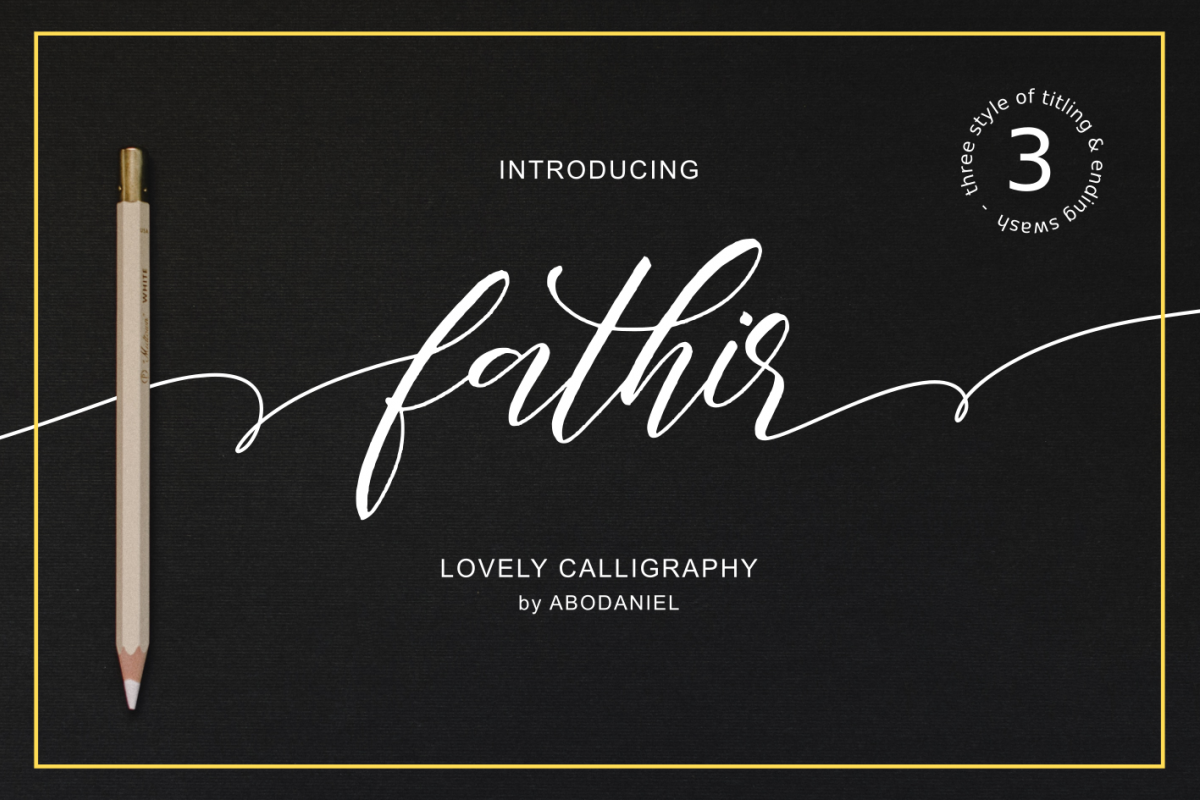
Fathir - Lovely Calligraphy -
Introducing
FATHIR - lovely calligraphy font -
Fathir is made with real handwritten,
The Alternate of uppercase are great for logo.
Three style of titling and ending swash
The font was came with three style of titling and ending swash.
It is very easy to acces the swash even you don't use pro software. ( you can see on presentation pictures )
FATHIR is perfect for branding, quotes, logo, invitation, packaging, and more...